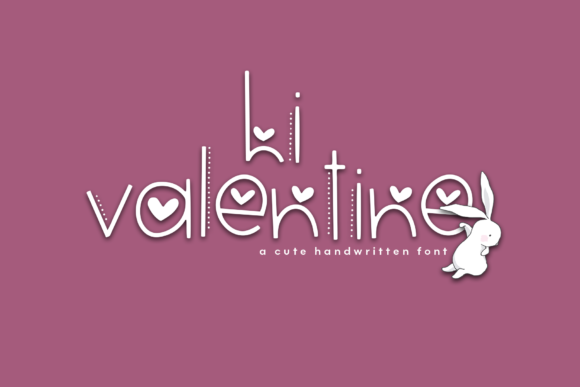
Dive into a world of adoration and affection with Hi Valentine Font, a display font that will make your Valentine's Day projects burst with love. KA Designs has crafted this charming font to add a touch of romance to your creative endeavors. Whether you're designing cards, posters, invitations, or any other Valentine's Day-themed project, Hi Valentine Font is sure to spread joy and affection.
With its playful and whimsical style, Hi Valentine Font exudes a sense of warmth and happiness. Each letter is carefully designed to capture the essence of love, with rounded curves and delicate details that create a captivating visual experience. Imagine the smiles and heartfelt emotions your projects will evoke when adorned with this enchanting font.
This font is perfect for expressing your love and appreciation to your special someone. Whether you're sending a heartfelt message, creating a romantic invitation, or designing a charming Valentine's Day card, Hi Valentine Font will add a touch of magic to your words.
So, embrace the love and spread happiness with Hi Valentine Font. Let your creativity soar and create projects that will warm hearts and bring joy to all who see them. Add Hi Valentine Font to your collection today and unlock a world of romantic possibilities.